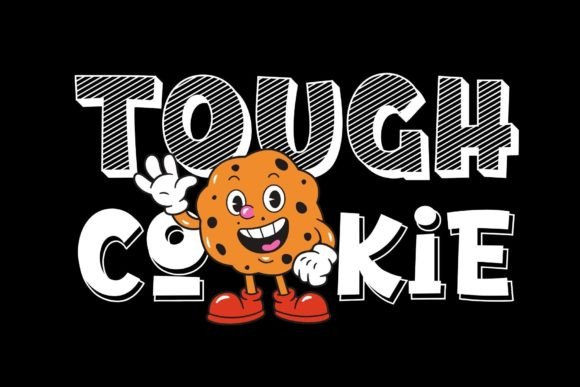
Introducing Fox Begins Font: A Cool, Cute, and Playful Display Font
In the world of typography, fonts play a crucial role in conveying the tone and personality of a brand or design. With the numerous font options available, it can be challenging to find the perfect one that captures the essence of your project. However, if you’re looking for a font that adds a captivating and energetic touch to your designs, look no further than Fox Begins Font. In this article, we’ll explore the features and benefits of Fox Begins Font, a 4-style font that’s perfect for various design applications.
What is Fox Begins Font?
Fox Begins Font is a modern, display font designed to add a cool, cute, and playful touch to your designs. This font is perfect for creative projects that require a unique and attention-grabbing typography. With its vibrant and expressive design, Fox Begins Font allows you to create stunning headlines, t-shirt typography, banners, product labels, and more.
Key Features of Fox Begins Font
- 4 Style Font: Fox Begins Font comes in 4 different styles, providing you with a range of options to choose from, depending on your design requirements.
- Cool, Cute, and Playful: This font is designed to add a captivating and energetic touch to your designs, making it perfect for projects that require a youthful and vibrant feel.
- Vibrant and Expressive Design: Fox Begins Font features a unique and expressive design that allows you to create attention-grabbing typography.
- Multipurpose: This font is perfect for use in various design applications, including publications, menus, logos, business cards, and even printed on t-shirts.
Design Applications for Fox Begins Font
Fox Begins Font is a versatile font that can be used in a wide range of design applications. Here are some of the ways you can use this font:
- Publications: Use Fox Begins Font to create eye-catching headlines and titles for magazines, newspapers, and books.
- Menus: Add a touch of playfulness to your restaurant or cafe menu with Fox Begins Font.
- Logos: Create a unique and memorable logo for your brand using Fox Begins Font.
- Business Cards: Stand out from the crowd with Fox Begins Font on your business cards.
- T-Shirts: Print Fox Begins Font on t-shirts to create fun and stylish apparel.
Benefits of Using Fox Begins Font
Using Fox Begins Font in your designs comes with several benefits. Here are some of the advantages of using this font:
- Uniqueness: Fox Begins Font exudes uniqueness, setting your designs apart from others.
- Attention-Grabbing: This font is designed to grab attention, making it perfect for headlines, titles, and other typography that needs to stand out.
- Versatility: Fox Begins Font can be used in various design applications, making it a great addition to your font library.
Tips and Tricks for Using Fox Begins Font
To get the most out of Fox Begins Font, here are some tips and tricks to keep in mind:
- Experiment with Different Styles: Try out the different styles of Fox Begins Font to find the one that works best for your design.
- Pair with Other Fonts: Pair Fox Begins Font with other fonts to create a unique and visually appealing typography.
- Adjust Font Size and Color: Experiment with different font sizes and colors to create a design that’s eye-catching and effective.
In conclusion, Fox Begins Font is a cool, cute, and playful display font that’s perfect for adding a captivating and energetic touch to your designs. With its vibrant and expressive design, this font is ideal for various design applications, including publications, menus, logos, business cards, and even printed on t-shirts. Whether you’re a designer, artist, or DIY enthusiast, Fox Begins Font is a great addition to your font library.